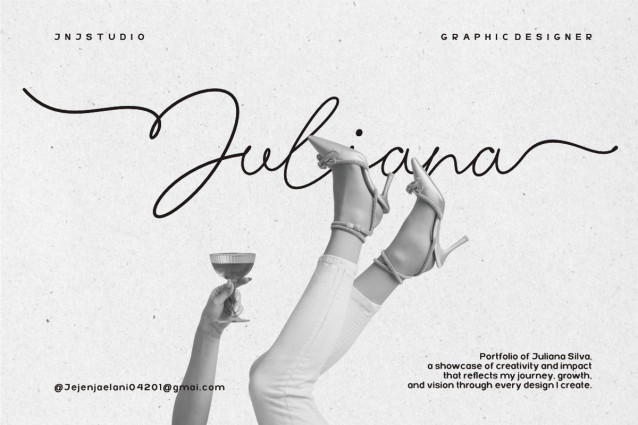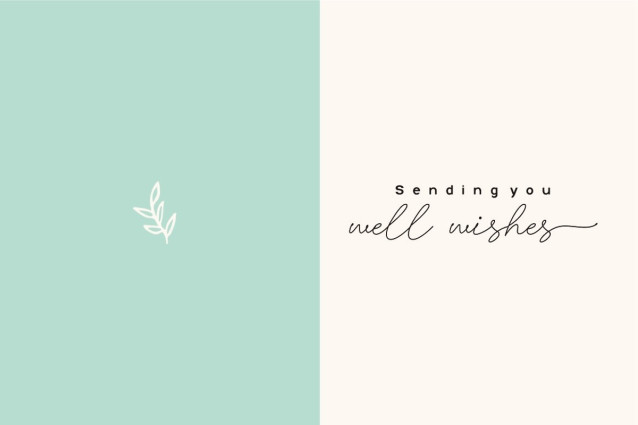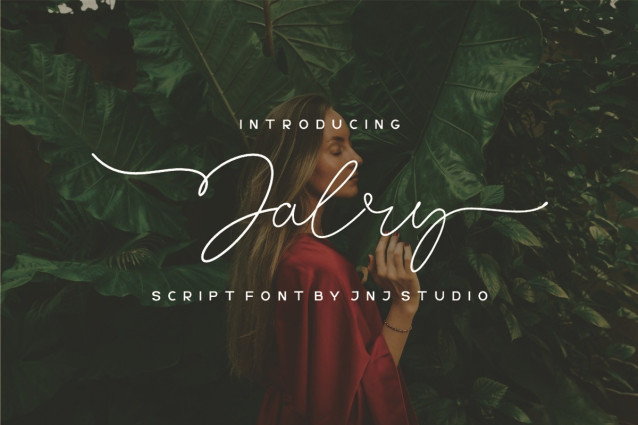
Jalry Script Font
Jalry Script Font is a modern script signature font that embodies elegance, authenticity, and personal expression. Inspired by natural handwriting, Jalry features smooth flowing strokes, refined curves, and a balanced rhythm that creates a stylish yet approachable signature feel.
Designed to convey sophistication and confidence, Jalry is perfect for branding, personal logos, fashion labels, photography watermarks, social media content, invitations, and premium editorial designs. Its organic letterforms bring a warm, human touch while maintaining a clean and professional appearance.
With its graceful flow and timeless character, Jalry transforms simple words into a distinctive signature—making every design feel personal, exclusive, and memorable.